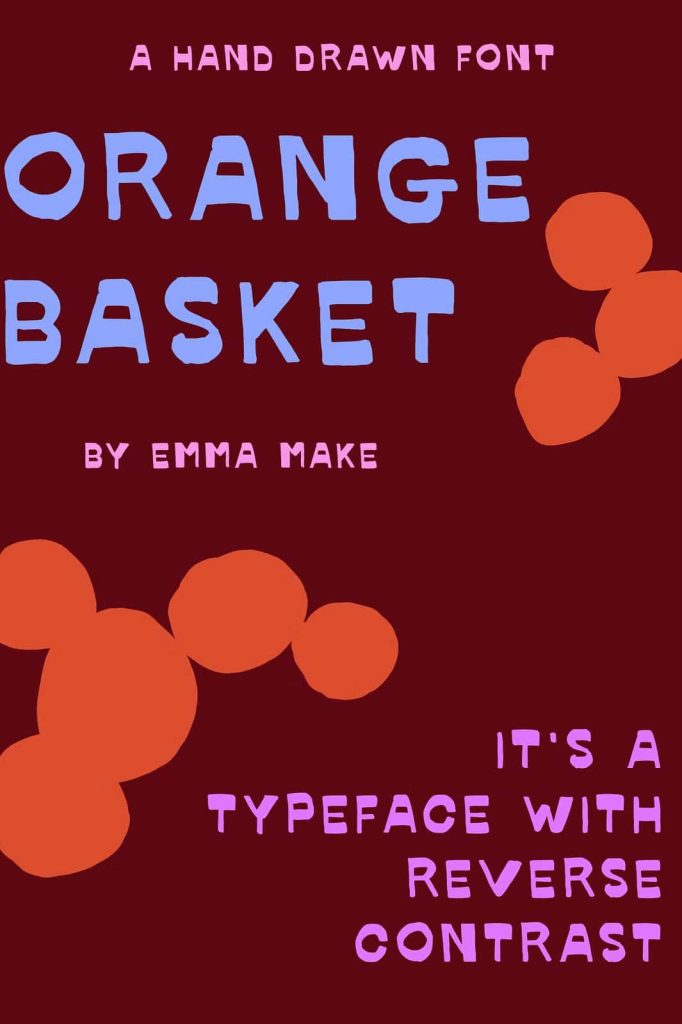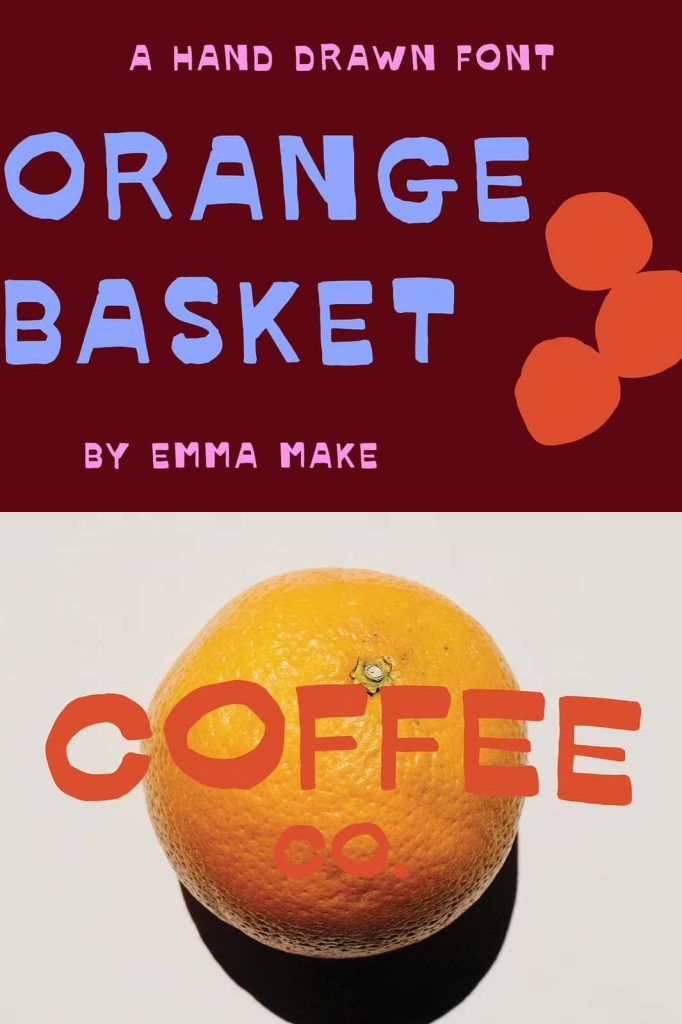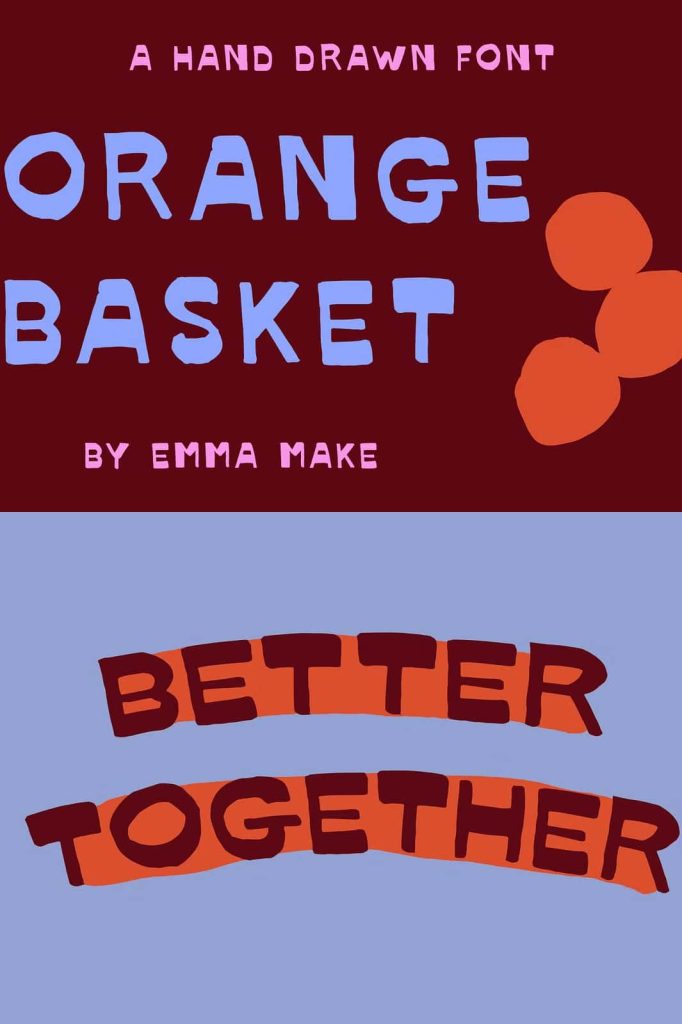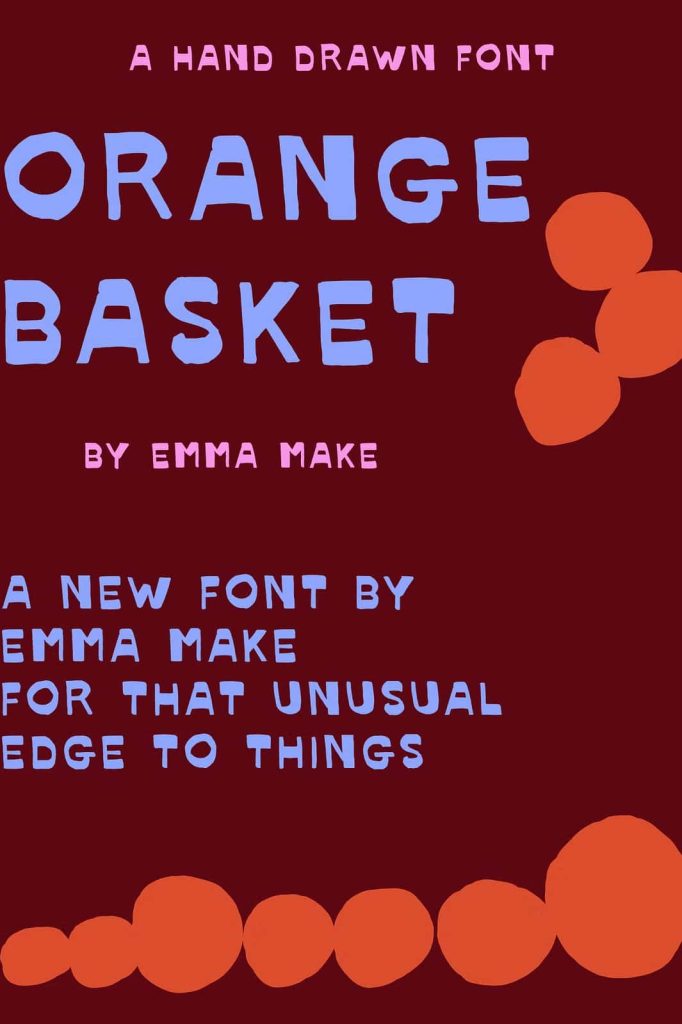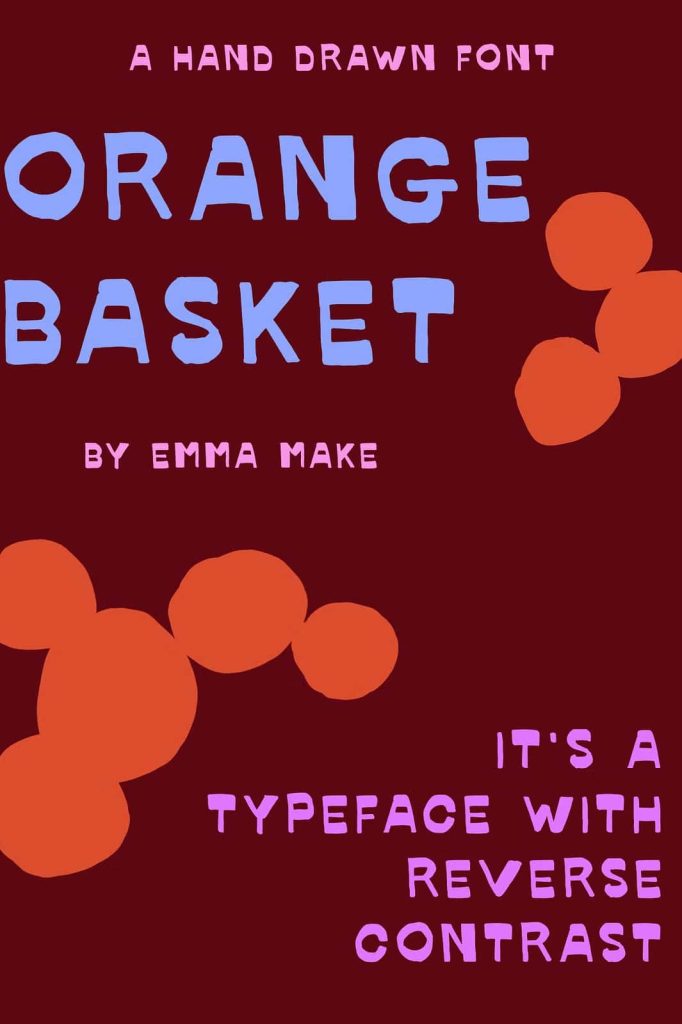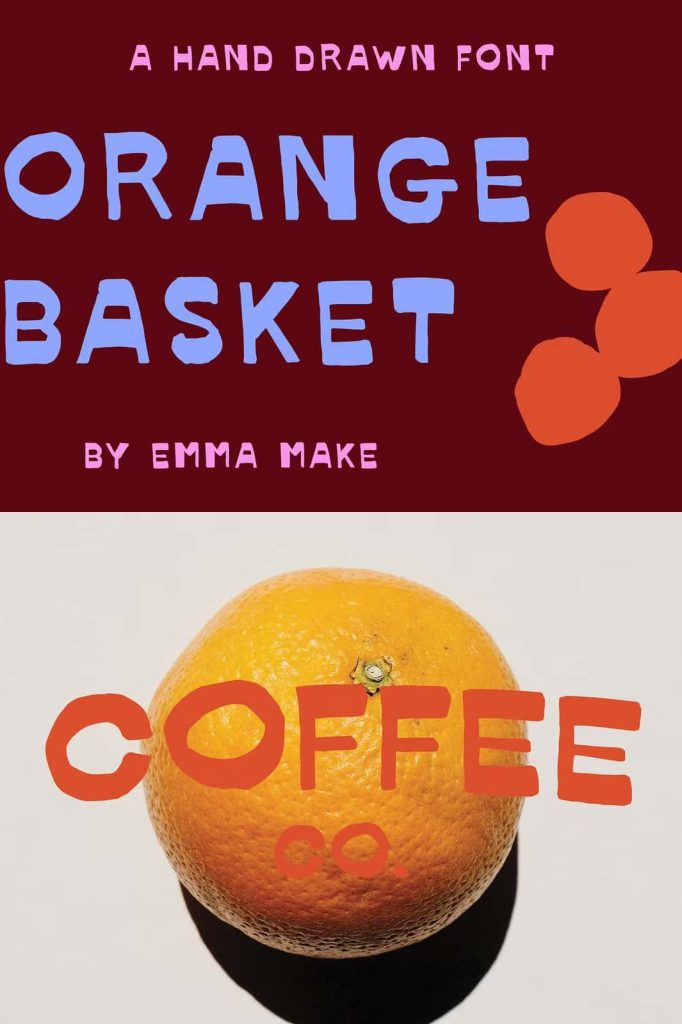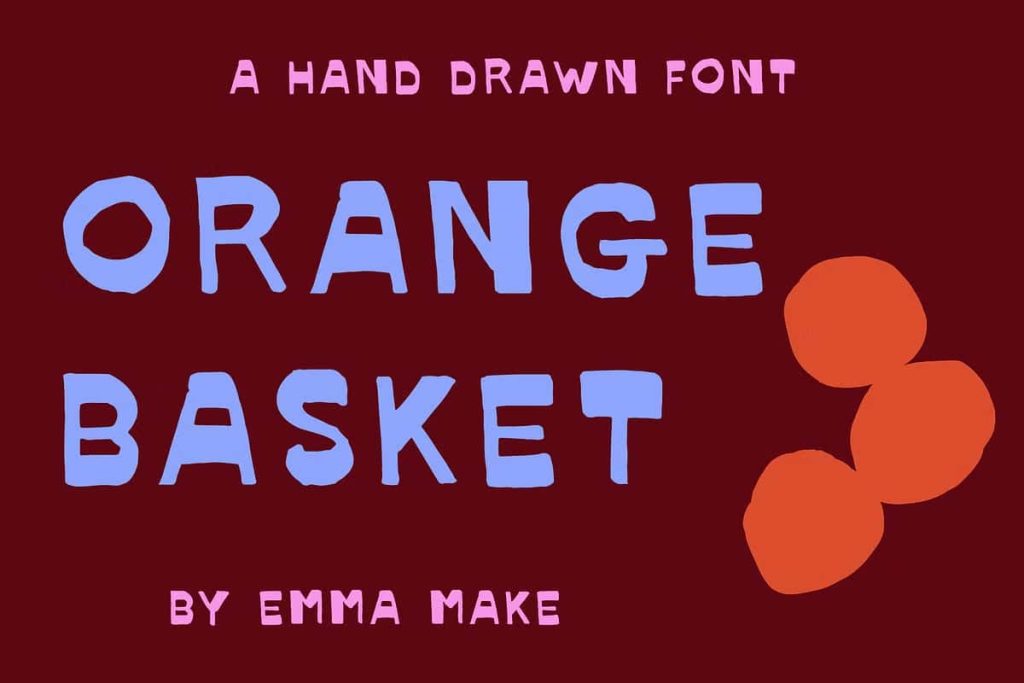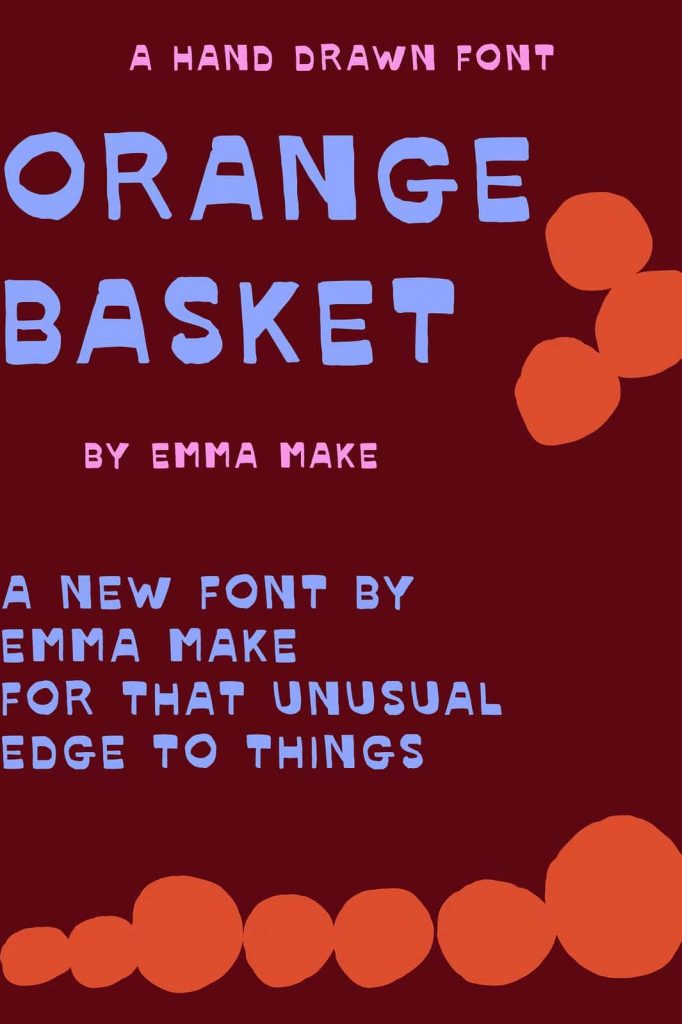
Orange Basket Reverse Contrast Font
Orange Basket is a distinctive reverse contrast font inspired by classic Italian typography and enhanced with a hand-drawn artistic style. This typeface stands out with its unusual stroke structure and expressive character shapes, making it an excellent choice for designers who want to create typography that feels bold, creative, and visually engaging.
The font combines vintage typographic inspiration with a playful handcrafted appearance. Its reverse contrast structure gives the letters a unique visual rhythm, while the hand-drawn details add warmth and personality. Together, these elements create a font that feels both artistic and memorable.
Designers often seek fonts that offer something different from traditional typography. Orange Basket delivers exactly that by presenting an unconventional typographic style that works beautifully in creative design projects. Whether used for posters, illustrations, or branding, this font introduces a fresh visual voice that captures attention.
Inspired by Italian Typography
Orange Basket takes inspiration from historic Italian type styles known for their decorative character and expressive shapes. Italian typography often features distinctive stroke patterns and playful letterforms that stand apart from more conventional serif or sans serif fonts.
This design heritage influences the overall personality of Orange Basket. The letters carry subtle vintage qualities while still feeling modern and versatile. The typeface reflects the artistic spirit commonly found in traditional European print design and poster art.
Designers who appreciate retro-inspired typography will recognize the charm and cultural influence behind this font. Orange Basket channels these historical influences while adapting them for contemporary creative applications.
A Blend of Tradition and Creativity
The Italian inspiration behind Orange Basket does not simply replicate historical typefaces. Instead, the font reinterprets classic design ideas through a modern and playful lens. This approach allows designers to enjoy vintage character while maintaining flexibility in modern layouts.
The result is a typeface that feels nostalgic yet fresh, providing designers with a distinctive visual style that works in both retro and contemporary contexts.
Unique Reverse Contrast Letterforms
One of the most striking features of Orange Basket is its reverse contrast structure. In traditional typography, vertical strokes are typically thicker than horizontal strokes. Reverse contrast fonts invert this rule by emphasizing horizontal strokes while keeping vertical strokes thinner.
This unconventional design approach creates a surprising visual effect. The letters appear more dynamic and expressive, drawing attention to the text in a way that standard fonts cannot achieve. Reverse contrast typography often feels bold and playful, making it ideal for display text and creative layouts.
Orange Basket uses this contrast technique to build a strong visual identity. The unusual stroke balance gives the font its signature appearance and helps it stand out in headlines, titles, and artistic compositions.
Expressive Typographic Rhythm
The reversed stroke contrast introduces a unique rhythm across words and sentences. Each letter interacts visually with the next, creating movement and energy throughout the typography. Designers can use this feature to craft layouts that feel lively and engaging.
This expressive rhythm makes the font particularly effective in large display settings where viewers can fully appreciate its distinctive structure.
Hand Drawn Aesthetic
Orange Basket enhances its reverse contrast design with a hand-drawn aesthetic that adds warmth and personality. Instead of rigid geometric precision, the letters feature subtle irregularities that resemble natural ink strokes.
These hand-drawn details give the font an organic and artistic feel. The slight variations in stroke weight and shape make the typography appear more human and less mechanical.
This handcrafted quality makes Orange Basket particularly suitable for creative projects that embrace illustration, handmade design, or artistic storytelling.
Organic Visual Texture
The hand-drawn approach introduces a gentle texture to the typography. The letters feel as though they were sketched with care rather than produced by a purely digital process. This organic quality strengthens the font’s connection to artistic design and illustration.
Designers can use this feature to add authenticity and character to their work.
Perfect for Creative Posters and Illustration
Orange Basket performs exceptionally well in poster design and illustration-based projects. Its bold reverse contrast structure ensures that headlines stand out clearly, while the hand-drawn character complements artistic compositions.
Illustrators and graphic designers often look for fonts that integrate naturally with their artwork. Orange Basket supports this goal by blending smoothly with hand-drawn graphics, sketches, and creative layouts.
When used in posters, the font becomes a strong visual focal point that enhances the overall artistic message.
Ideal for Artistic Typography
Designers can use Orange Basket to create typography that feels playful and expressive. Its unusual structure encourages experimentation with layouts, colors, and graphic elements.
This creative freedom makes the font an excellent choice for designers who want to push beyond conventional typography.
Versatile for Modern Design Projects
Although Orange Basket carries a strong artistic personality, it remains versatile enough for many modern design applications. The font adapts well to digital and print environments, allowing designers to use it across multiple creative platforms.
Its distinctive style makes it particularly suitable for projects that aim to stand out visually.
Common Design Applications
Designers frequently use Orange Basket in projects such as:
- Creative poster design
- Illustrated artwork and typography posters
- Brand identities for artistic businesses
- Hand-drawn style websites
- Creative packaging design
- Social media graphics and digital promotions
- Artistic editorial layouts
In these applications, the font helps transform ordinary text into a visually engaging design element.
Create Bold Artistic Typography
Orange Basket offers designers a unique typographic solution that combines reverse contrast structure with a charming hand-drawn aesthetic. Inspired by Italian typography and enriched with artistic details, the font delivers a visual identity that feels playful, creative, and distinctive.
The expressive letterforms make it perfect for display typography, while the handcrafted texture ensures that designs feel warm and authentic. Designers can use Orange Basket to add personality and originality to posters, websites, branding projects, and illustrated compositions.
For creative projects that demand bold typography and artistic expression, Orange Basket provides a font that stands out while celebrating the beauty of unconventional design.